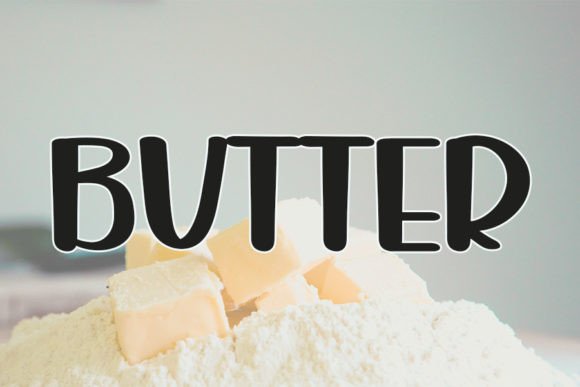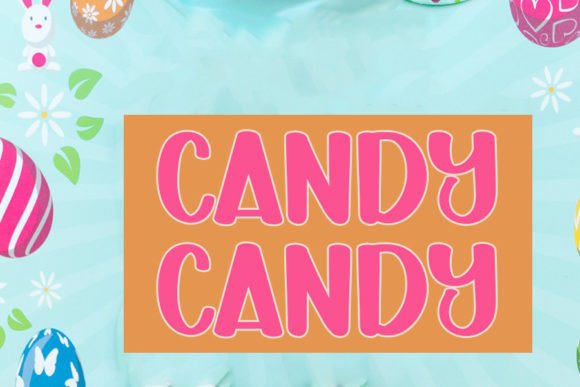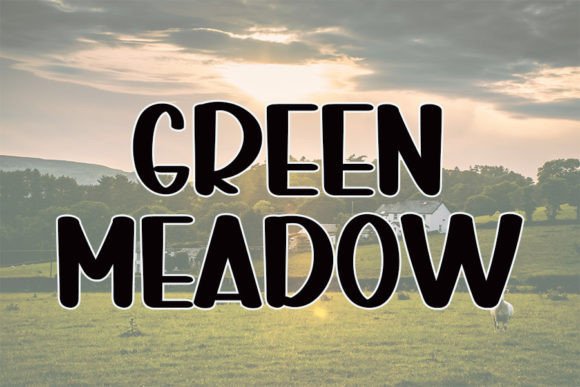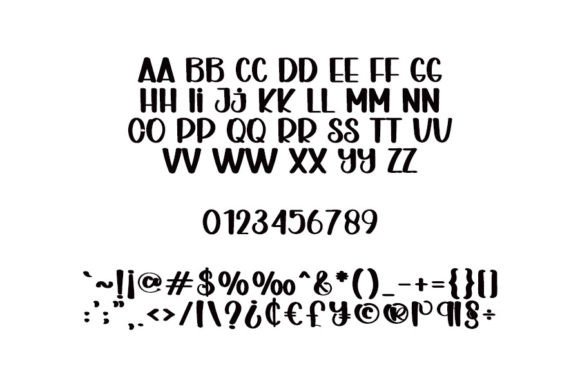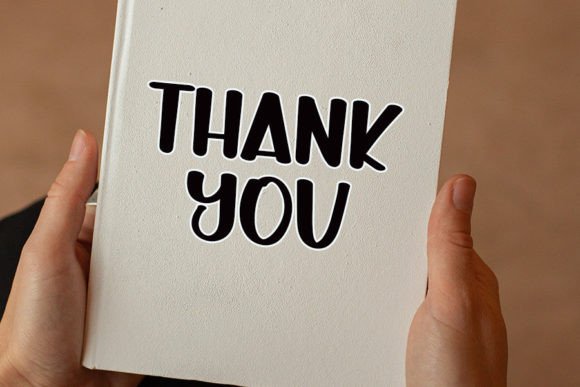
Introduction to Simple Interior Font
Simple Interior is a trendy handwritten font with a contemporary atmosphere and impeccable form, inspired by a timeless classic calligraphy.
It will add elegance and class to any of your design projects .
Key Features of Simple Interior Font
Why Choose Simple Interior Font?